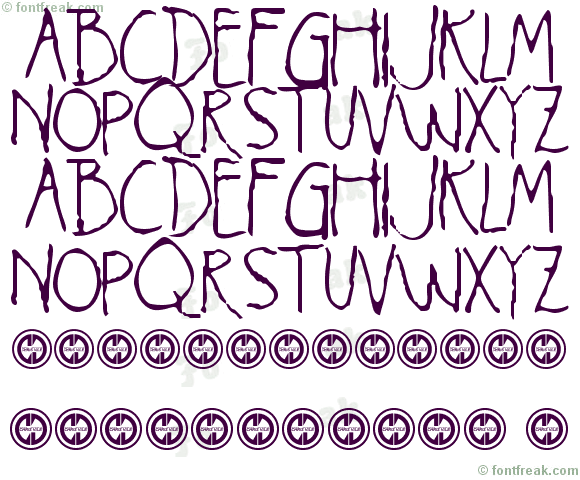
Voices in my Head
Voices in my Head is a unique display font designed by Chris Vile, categorized as a decorative typeface. With its distinct and whimsical style, this font captures attention with its playful, irregular strokes that evoke a sense of creativity and spontaneity. The irregularity in the letterforms gives it a hand-drawn, slightly chaotic feel, making it perfect for projects that require a personal touch. The stroke weight varies throughout, providing an interesting contrast that enhances its visual appeal. The spacing is intentionally uneven, adding to the font's eccentric character and making it stand out in any design.
This font is particularly well-suited for a variety of creative applications. It can be used effectively for eye-catching movie posters, where its boldness can convey a sense of drama and intrigue. Additionally, Voices in my Head works wonderfully for restaurant menus that aim to showcase a quirky, artistic vibe. It’s also ideal for children's book covers, as its playful nature will attract young readers. Furthermore, this typeface can add flair to event invitations, especially for themed gatherings or parties that celebrate creativity and fun.
What sets Voices in my Head apart is its ability to convey emotion and creativity through its distinctive design. It invites viewers to engage and explore, making it a valuable addition to any designer's toolkit. Whether you’re crafting a whimsical project or need a standout typeface that breaks the mold, this font will not disappoint.